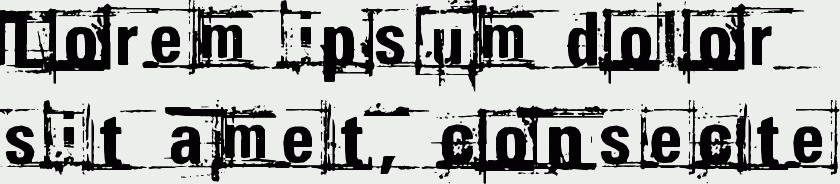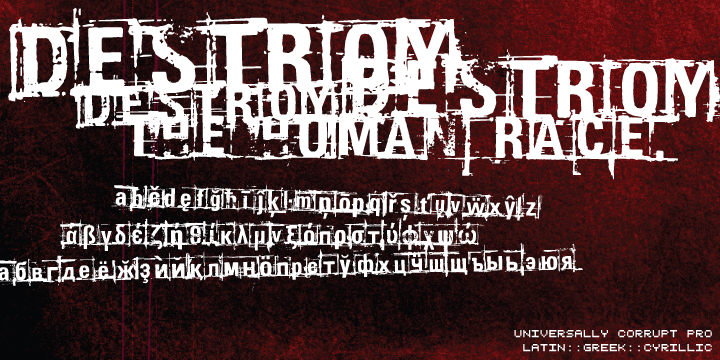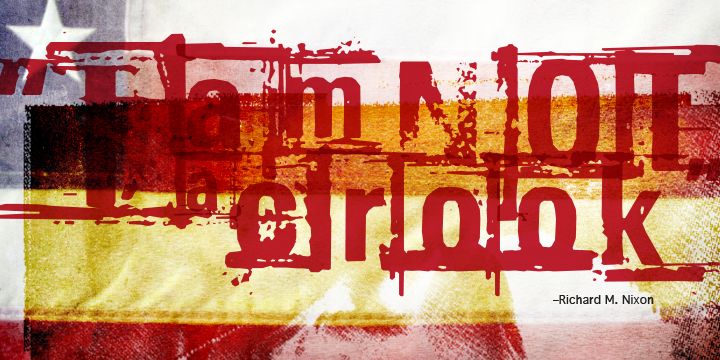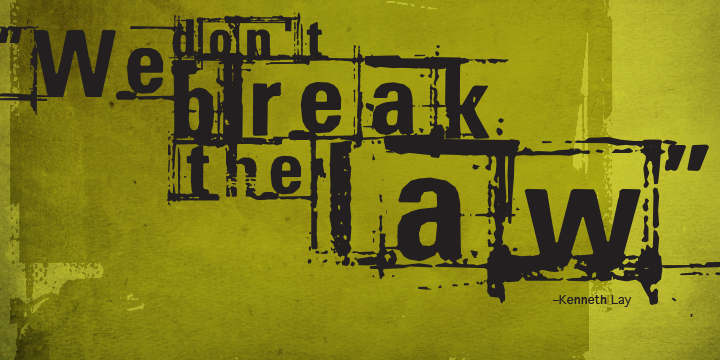
Universally Corrupt Pro
Universally Corrupt is a distressed, noisy and corroded font that is perfect for hiding any words of truth by burying it in chaos. A “must have” typeface for any politician or corporate C.E.O! It was expanded to include extended Latin, extended Cyrillic and Greek alphabets so it will work with most languages in Europe and the Americas.
Designer: Michael Wallner